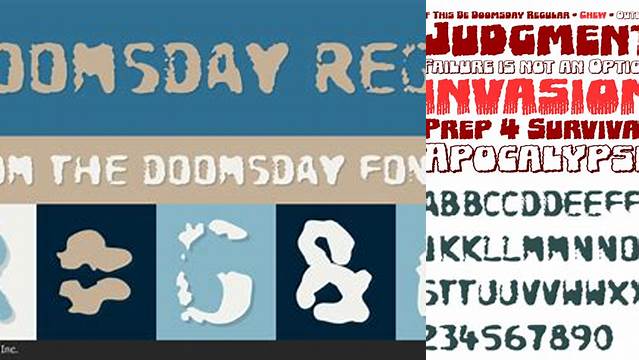
Understanding the 'Doomsday Font' Appeal
The 'Doomsday Font,' often associated with a gritty, post-apocalyptic aesthetic, has garnered significant interest among designers and enthusiasts looking for unique typography. This style evokes feelings of survival, raw energy, and a certain ruggedness that can make text stand out. Whether you're working on a project that explores themes of disaster, survival, or just want to add a distinctive edge to your designs, the allure of a 'Doomsday Font' is undeniable. Many are searching for 'fire doomsday font free download ttf' to incorporate this powerful visual language into their work without incurring costs. The 'ttf' extension signifies the TrueType Font format, a common and widely compatible type that ensures ease of use across various operating systems and design software. The combination of 'fire' and 'doomsday' suggests a font that might feature elements of burning, destruction, or an intense, almost chaotic energy, making it perfect for projects aiming for a dramatic impact. Think movie posters for action thrillers, album art for heavy metal bands, or even website designs for brands wanting to convey a sense of raw power and resilience. The accessibility of free downloads further fuels this trend, democratizing the use of specialized fonts that were once only available to those with professional design licenses. This allows a broader creative community to experiment and push the boundaries of visual communication. The search for this specific type of font highlights a growing desire for expressive and thematic typography that goes beyond standard, everyday fonts, offering a way to visually communicate complex emotions and concepts.
Exploring the Characteristics of Doomsday Typography
When we talk about 'Doomsday Typography,' we're delving into a niche but highly impactful category of fonts. These fonts often feature distressed textures, sharp angles, and a general sense of wear and tear, as if they've survived some catastrophic event. Think of letters that look scratched, faded, or even partially burned – these are the hallmarks of a good doomsday-themed font. The 'fire' element in 'fire doomsday font' adds another layer, suggesting fonts that might incorporate visual cues of flames, embers, or scorching. This can be achieved through specific character designs, stroke variations that mimic licking flames, or even subtle textures that suggest heat and destruction. For designers on a budget, the quest for a 'free download ttf' version is paramount. This allows them to experiment with these powerful typographic styles without financial commitment, making them accessible for student projects, personal blogs, or independent creative endeavors. The 'ttf' format ensures that once downloaded, the font can be easily installed and used on most computers, whether running Windows, macOS, or even Linux. The versatility of this format is a key reason why many free font repositories offer their files in this common extension. The appeal lies in creating a cohesive visual narrative; a font isn't just about readability, it's about conveying mood and theme. A 'fire doomsday font' can instantly set a tone of intensity, danger, or even rebirth from ashes, depending on the context. It’s about using typography as a storytelling tool, making sure every visual element contributes to the overall message and aesthetic. Guys, if you're looking to make your next project scream intensity, this is the kind of font you need to be exploring.